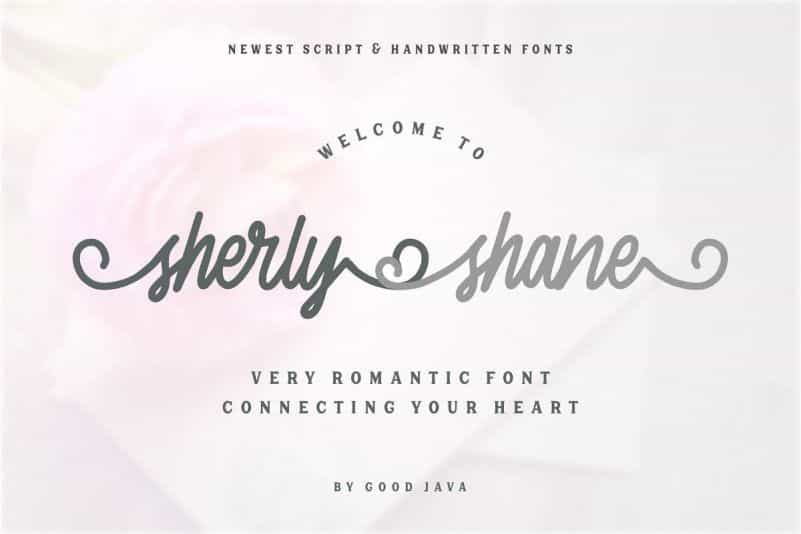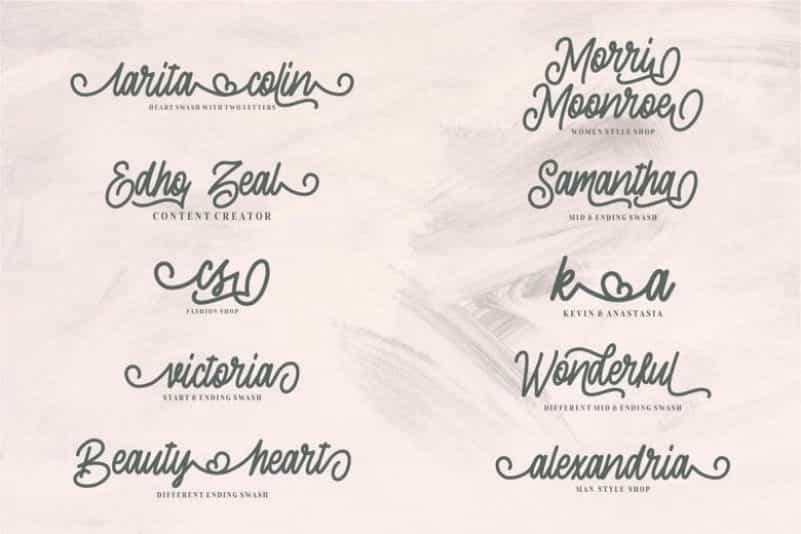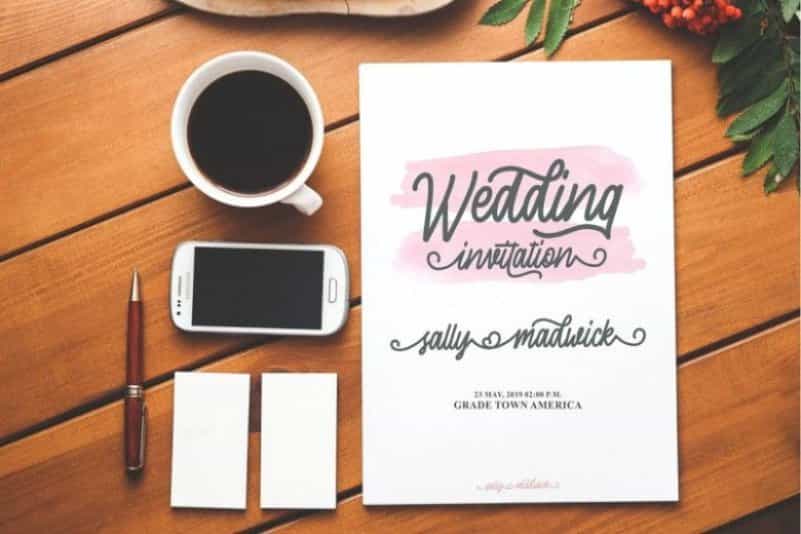
Sherly Shane Font – A sophisticated script typeface which is made by hand and has a natural look. It will be the one that makes any creative project to look truly unique with its charm!SherlyShane is a romantic script font that comes with many swashes in the start and end characters. Create a lovely style heart with swash. This font contains all the swash heart lowercase letters, numerals and punctuation.